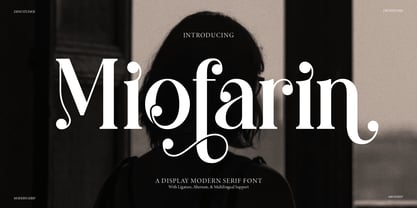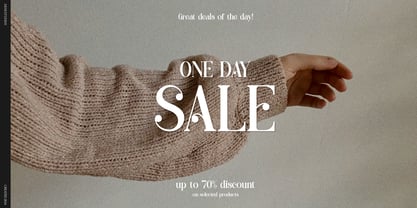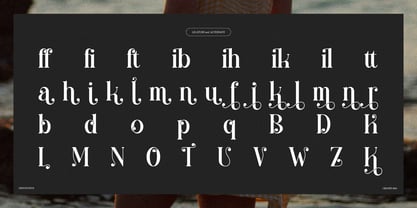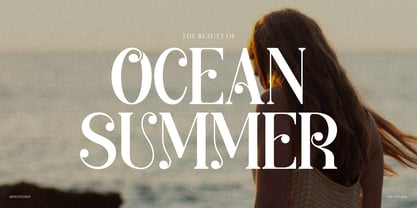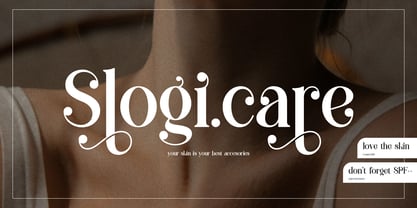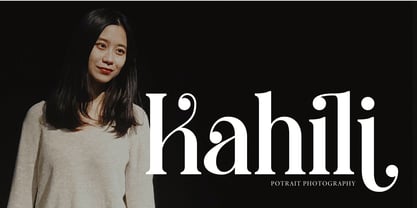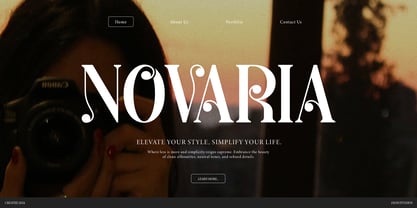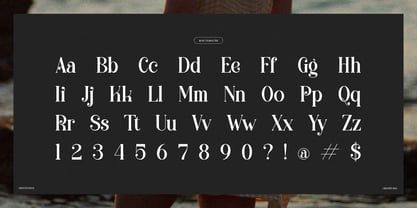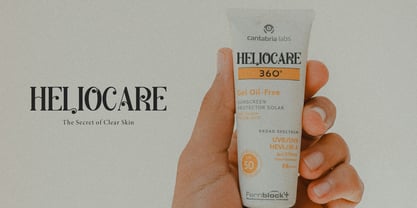
Miofarin
by Denustudio
The Miofarin Font Family was designed by Dede Nugraha and published by Denustudio. Miofarin contains 2 styles and family package options. More about this family
Miofarin | Display Modern Serif, from Denustudios, suitable for any projects such as: logos, branding projects, homeware designs, product packaging, mugs, quotes, posters, shopping bags, t-shirts, book covers, name card, invitation cards, greeting cards, label, photography, watermark, special events, and all your other lovely projects that need a Display Modern Serif taste.
• Regular and Italic
• Standard glyphs
• Alternate and Ligature
Designers: Dede Nugraha
Foundry: Denustudio